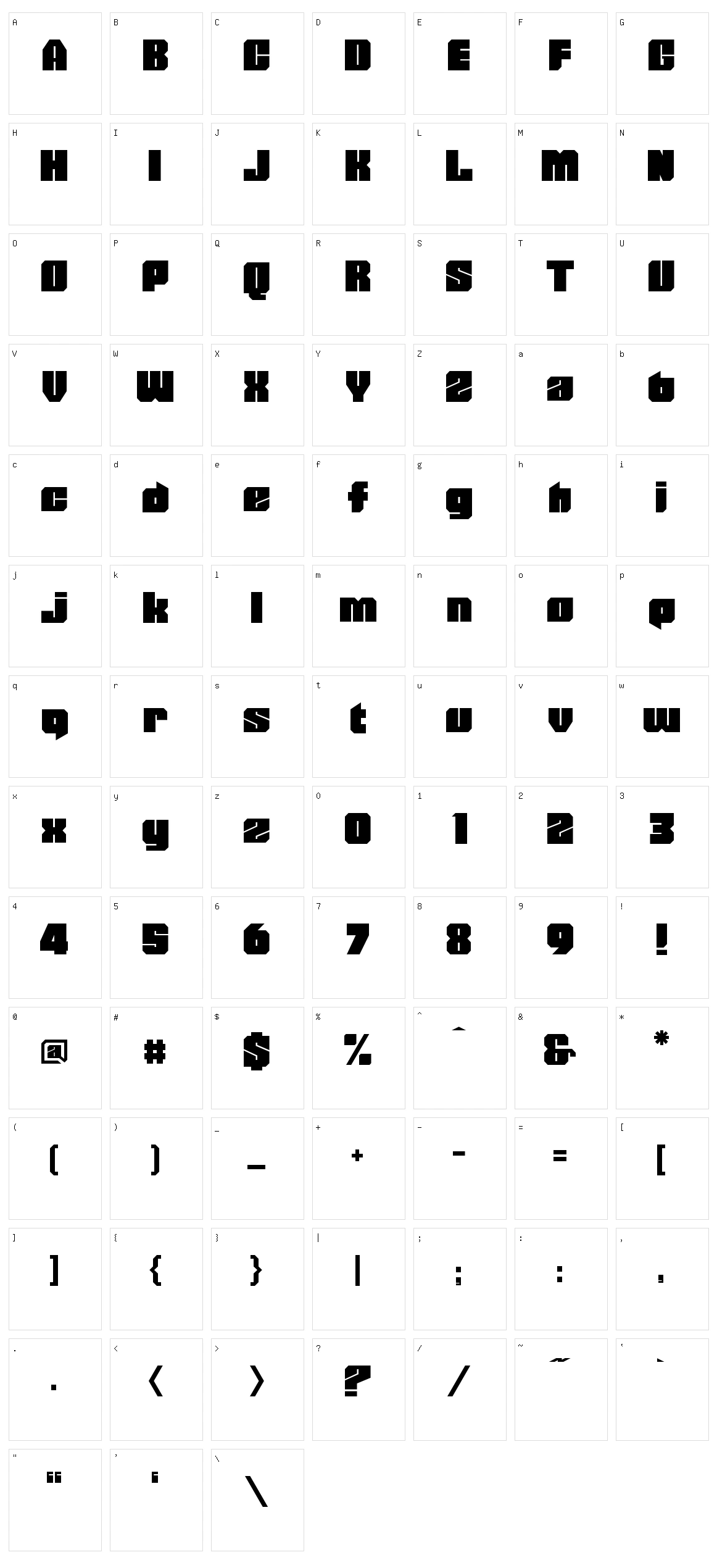
The free font Power Chord is carefully designed by Diegoliv, showcasing a thoughtful balance of creativity and usability and falls under the Square font style. When you download the ZIP file, it contains only 58.01 KB of font files, making it lightweight and quick to download. Please review the license details below to understand permitted usage and distribution rights. If license information is not available, we recommend using this font for personal projects only or contacting the author directly for commercial usage permissions.